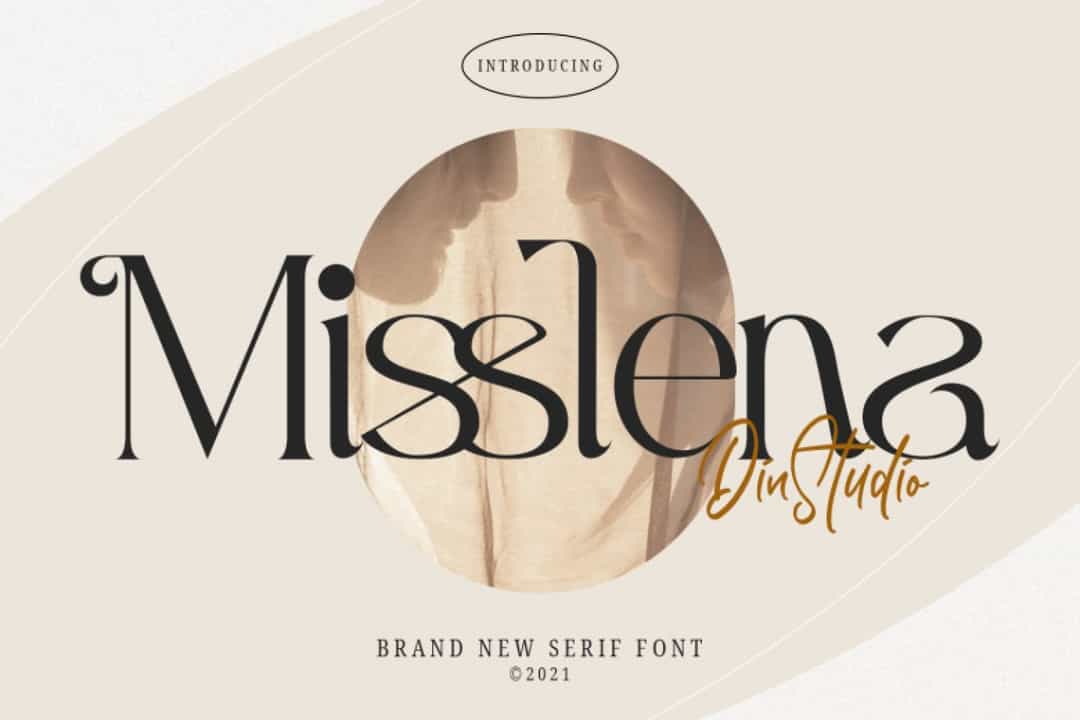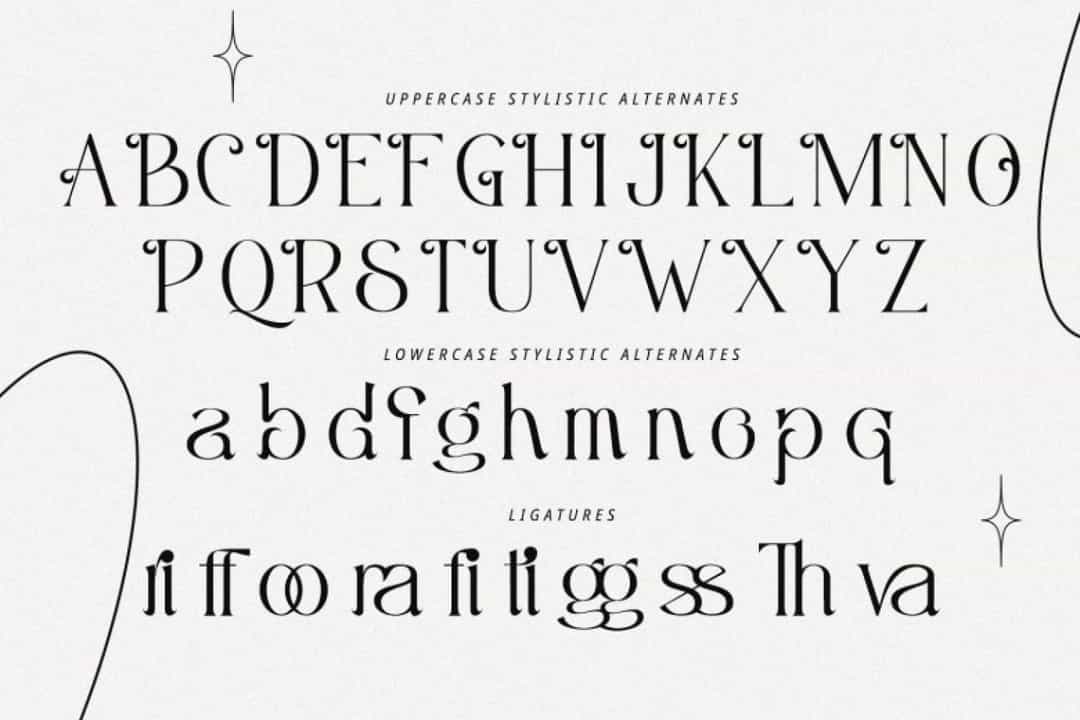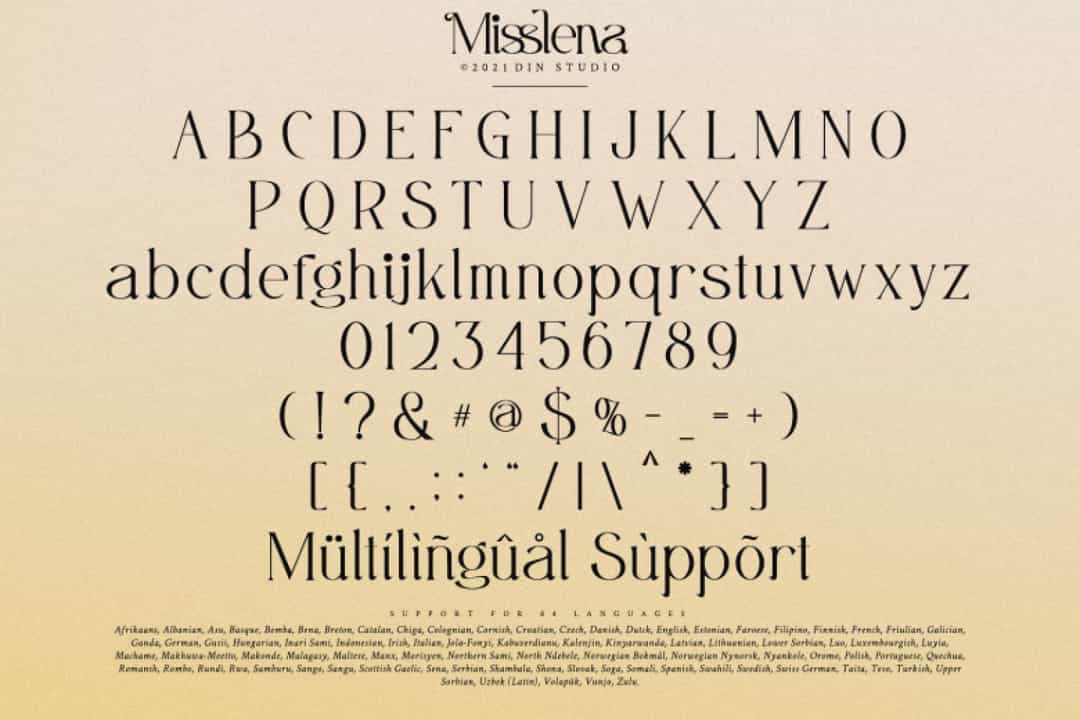
Misslena Serif Font was created to add a contemporary and elegant aesthetic to whatever you create. It includes uppercase characters, every punctuation mark and numeral as well as ligatures and alternate characters for easy text flow and individual flair – making lighter weights ideal for body-text.